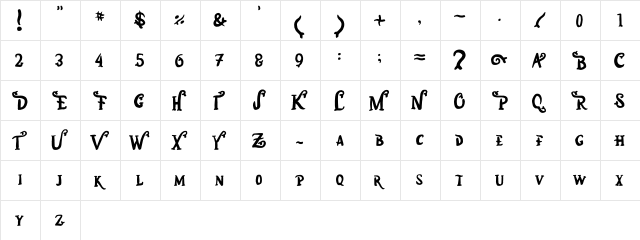
Marina Sundaland Regular
| Designer | Feri Fauzi |
Design Context for Marina Sundaland Typeface
Marina Sundaland is a composed and adaptable typeface that performs quietly and consistently across a wide range of design contexts.